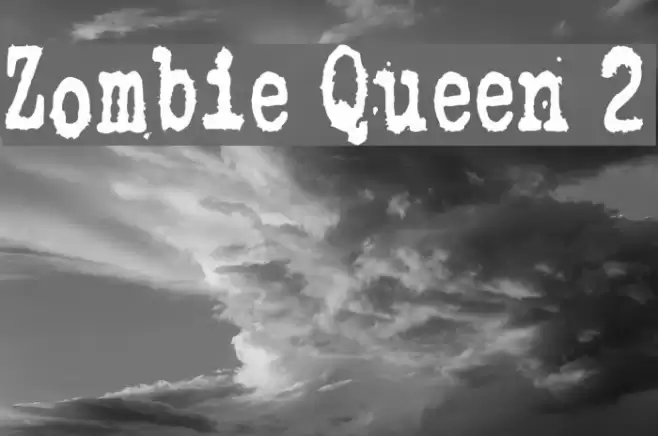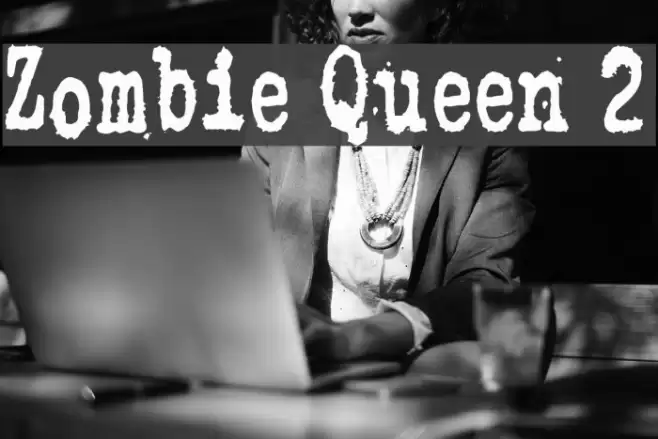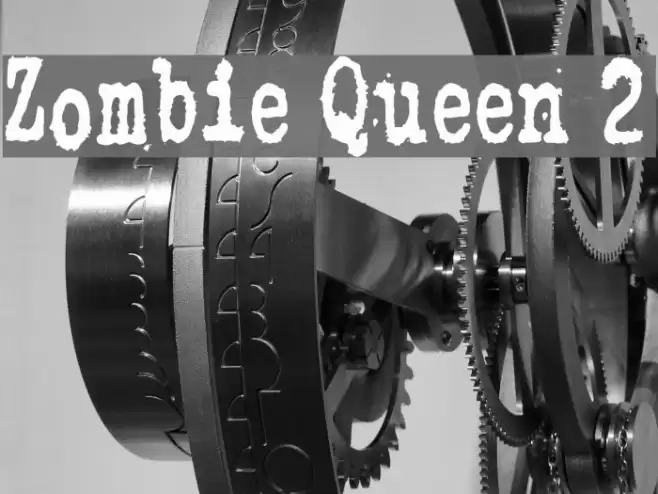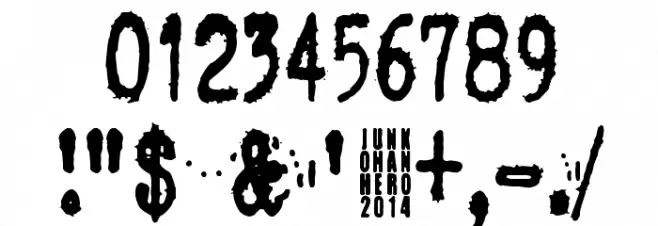
Zombie Queen 2 Font
Zombie Queen 2 Description
This font features a distressed and grungy style, characterized by irregular edges and a textured appearance that mimics decay or erosion. The uppercase and lowercase letters maintain a consistent height, with each character exhibiting unique imperfections that add to the overall chaotic aesthetic. The numbers and special characters follow the same design principles, ensuring a cohesive look across all glyphs. This font's raw and edgy style makes it ideal for projects that require a bold statement or an unconventional look.
A distressed, grungy font with irregular edges and a textured appearance from Uncategorized fonts.
- Proposed Projects: Ideal for horror-themed designs, album covers, posters, and any project requiring a bold, edgy aesthetic.
- Overall Style: Grunge, Distressed
- Use Case: Headlines, Posters, Album Covers